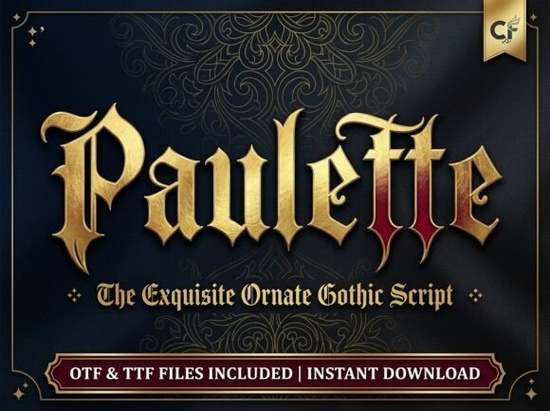
If you are looking for a font that instantly grabs attention without relying on overused styles, the Paulette Font might be exactly what your next project needs. This decorative display font was designed to stand alone – each letter feels like a small piece of art. For designers, print-on-demand sellers, and hobbyists who want typography that does the heavy lifting, having a font like this in your toolbox is a smart move.
Why choose a decorative display font like Paulette?
Most fonts fade into the background – they just carry the message. But sometimes you want the message to have a voice of its own. That’s where display fonts come in. Paulette Font works because it doesn’t try to be subtle. The letterforms have a strong visual personality, with artistic details that make headlines and logos feel custom-drawn. If you’ve ever struggled to make a poster or social media graphic feel “special,” this font handles that for you.
It’s particularly useful when you need one typeface to carry the whole design. Instead of layering multiple fonts and effects, you let Paulette be the center of attention. This saves time and keeps your layout clean.
What projects work best with this font?
The product description lists several applications, but let me break down where it really shines:
- Poster and flyer headlines – The intricate details hold up well at large sizes, making people stop and read.
- Branding and logos – Creative businesses, especially in fashion, beauty, or art, can build a unique identity around this font.
- Apparel and merchandising – T-shirt designs, tote bags, or hoodie prints look premium when the typography itself is the graphic.
- Social media quotes and announcements – In a crowded feed, a standout font can make your content more clickable.
- Packaging and product labels – Gives handmade or small-batch products an artistic, boutique feel without hiring a lettering artist.
- Music and event art – Album covers, festival flyers, and posters benefit from the bold, expressive style.
How does it compare to other decorative fonts?
Since decorative fonts are best used for headlines or short text, test Paulette with your actual project phrase before purchasing. Write a sample sentence in a design tool, scale it up, and see how the letters flow together. Some decorative fonts look incredible for single letters but become chaotic in a full word – Paulette holds up well, but every project is different.
A quick checklist to see if this font fits your workflow
- You need a single typeface that can create high-impact headlines.
- Your brand or client is creative, modern, or artistic.
- You want designs that look custom and premium without hand-lettering.
- You work with print-on-demand, apparel, or social media content regularly.
If that sounds like you, Paulette Font is a strong addition to your library. Start by using it for one project – a poster, a logo concept, or a shirt design – and see how it transforms the look. That’s often the best way to decide.